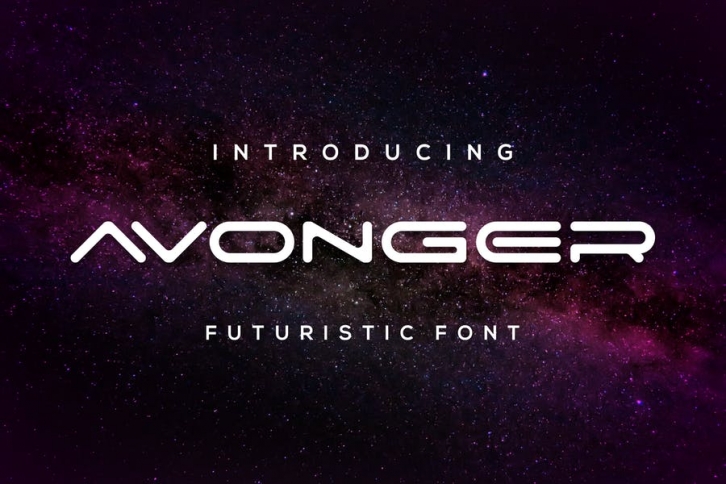
Introducing our new product Avonger Font - Modern Font
Avonger Font - Modern Font is a bold and authentic display font. The font is suitable for any branding project like logo, t-shirt printing, esport, and many more. outstanding in a wide range of contexts.